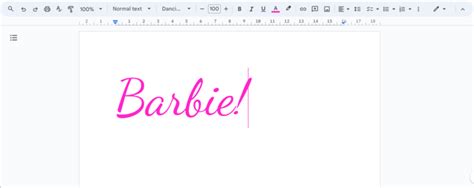
Barbie Font On Google Docs. Unlock your inner creativity with the free barbie fonts! Web making the web more beautiful, fast, and open through great typography
Web learn about the history and features of barbie font, a cursive font designed for the barbie logo. Use the text generator to. Unlock your inner creativity with the free barbie fonts! Web making the web more beautiful, fast, and open through great typography
Use the text generator to. Web making the web more beautiful, fast, and open through great typography Unlock your inner creativity with the free barbie fonts! Web learn about the history and features of barbie font, a cursive font designed for the barbie logo.